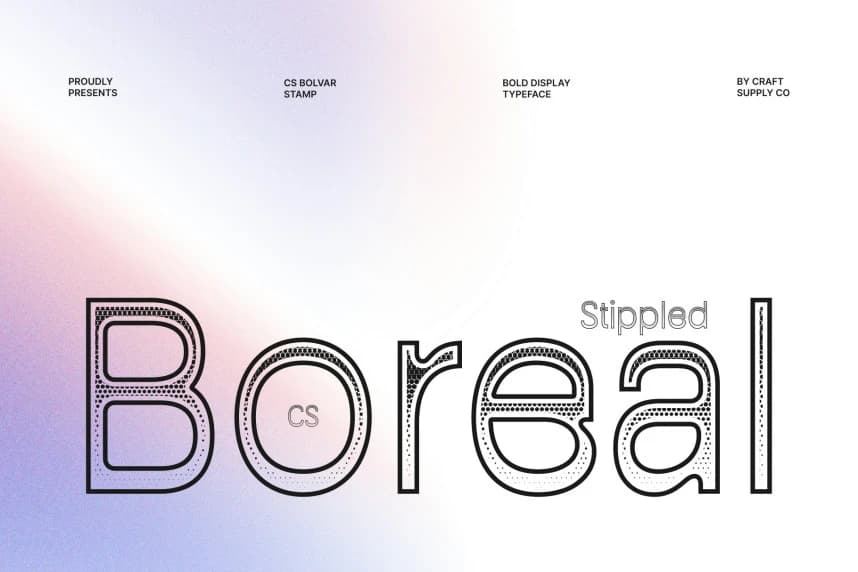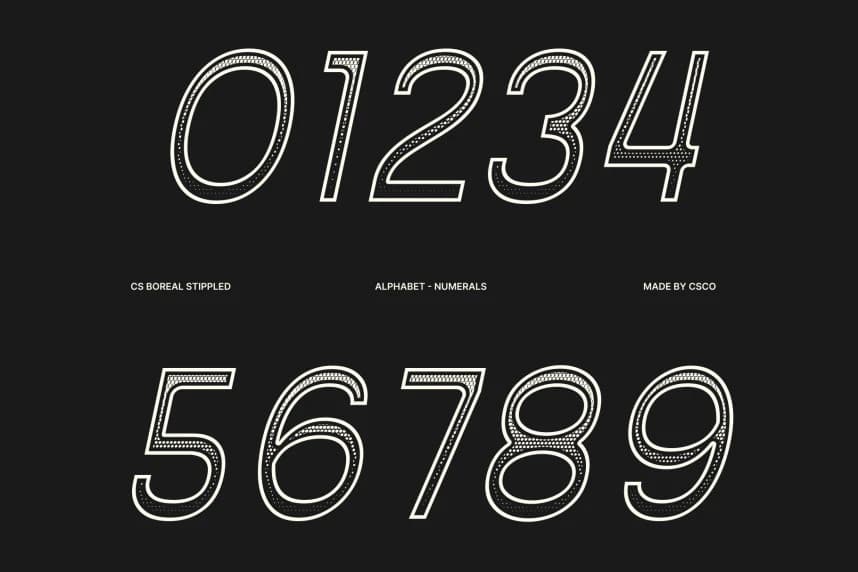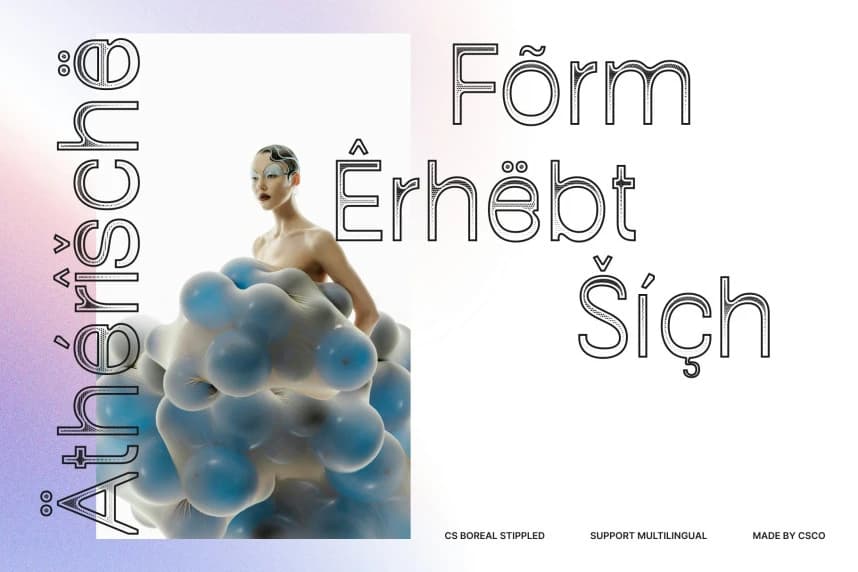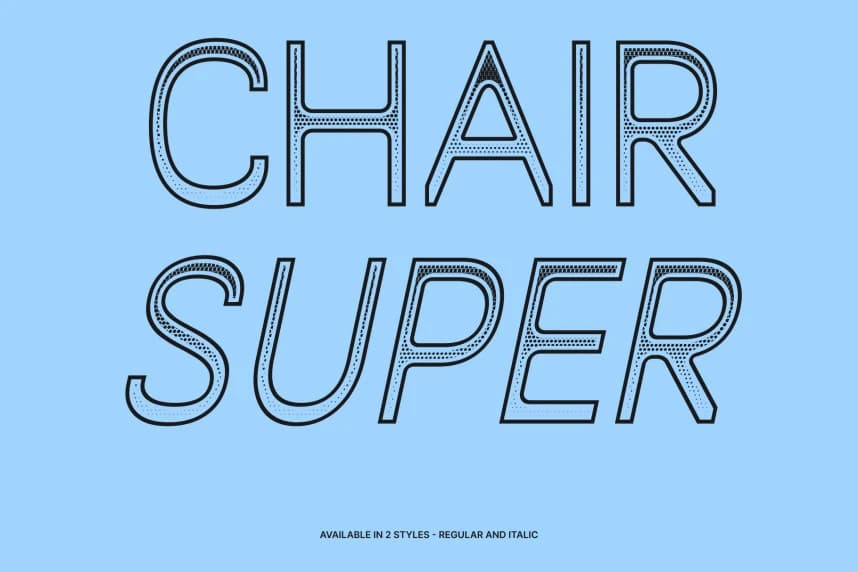
CS Boreal Stippled Font
CS Boreal Stippled Font – Modern Sans Serif with Fresh Quirky Character Clean and Contemporary Sans Serif Font. This is a modern sans serif font that blends clean construction with quirky, distinctive shapes.